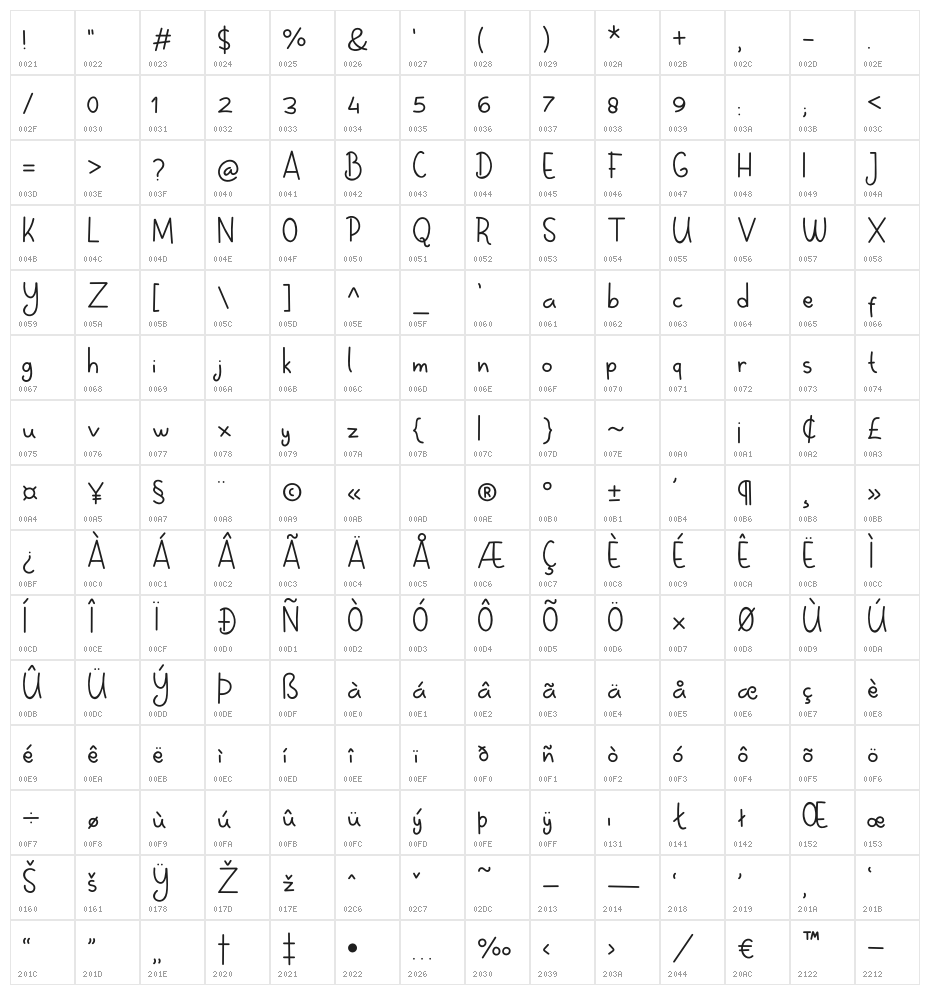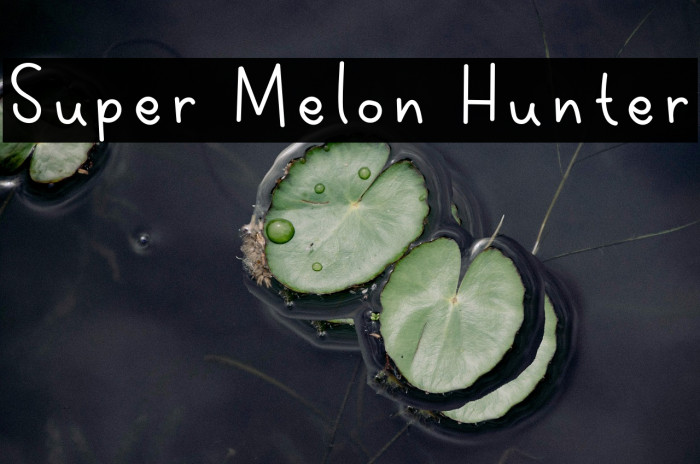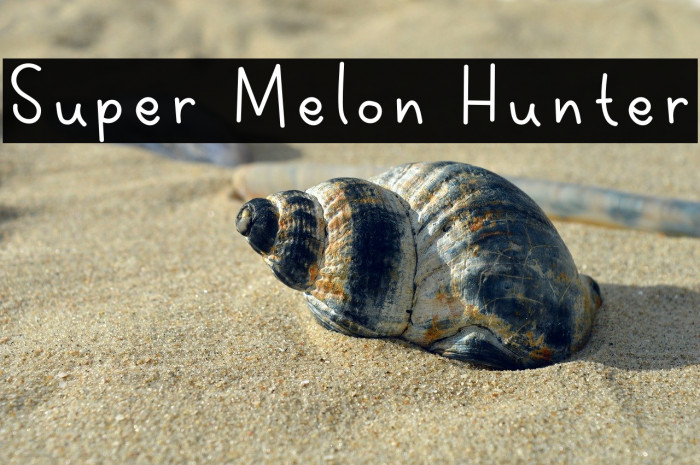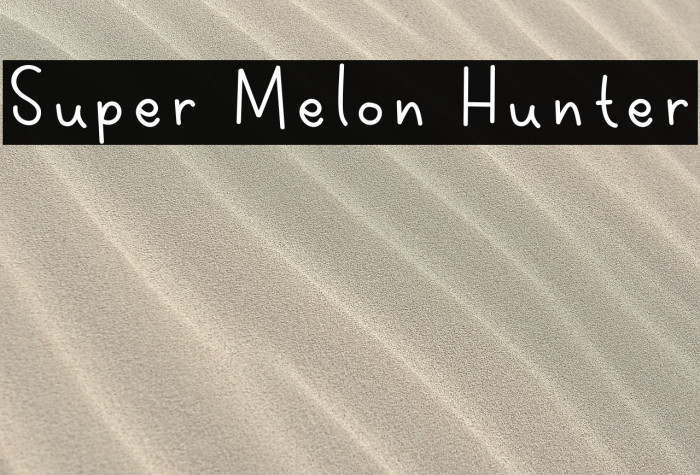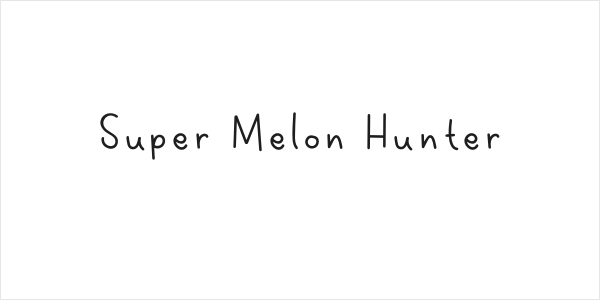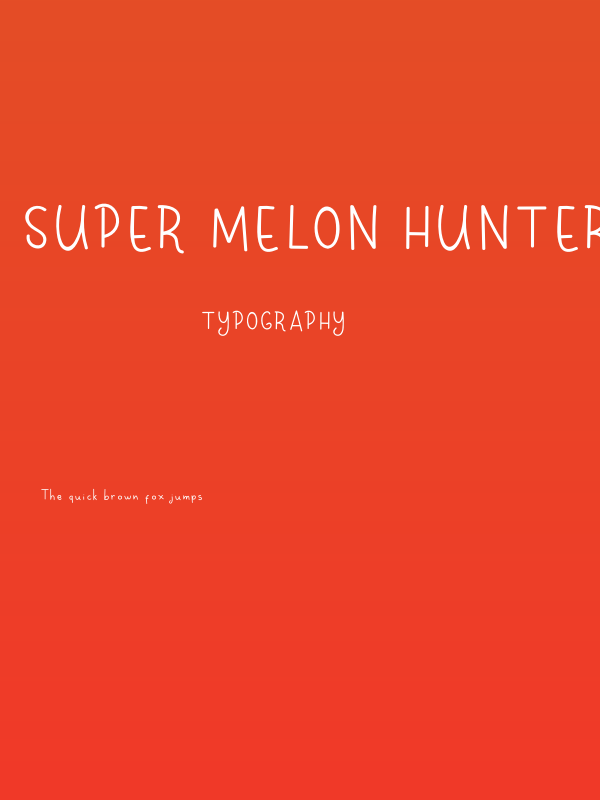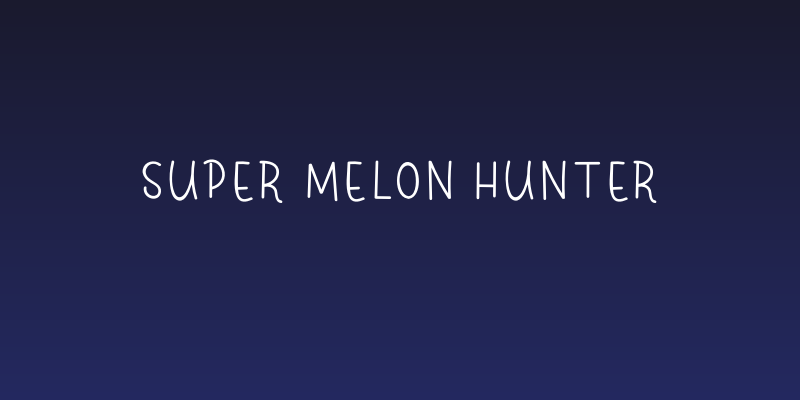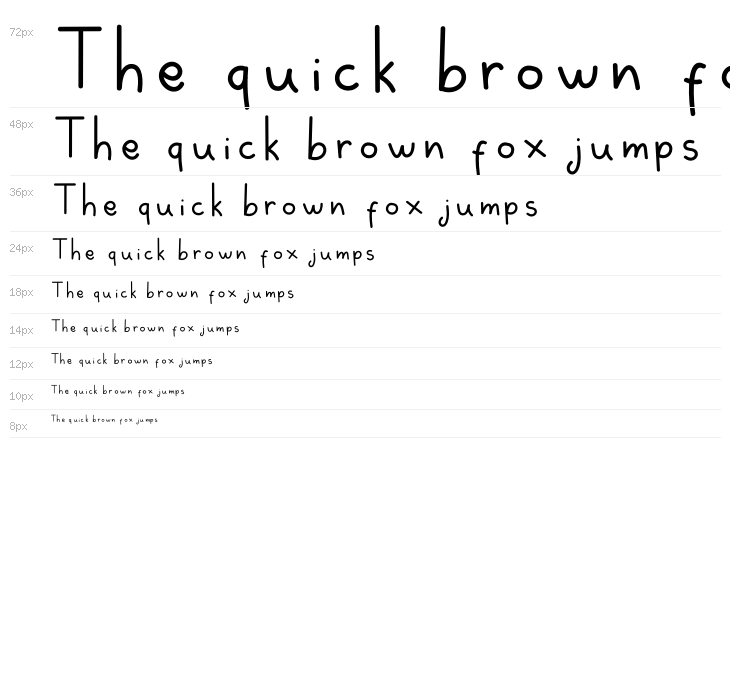
Super Melon Hunter Font
Super Melon Hunter Description
This font features a playful and whimsical handwritten style, characterized by its smooth, rounded edges and slightly irregular letterforms. The uppercase letters are tall and narrow, with a casual flair that adds a touch of personality. The lowercase letters maintain a consistent flow, with some letters like 'g' and 'y' having distinctive loops. The numerals are clear and easy to read, matching the overall playful aesthetic. Special characters are well-integrated, maintaining the font's cohesive look. This font is perfect for projects that require a friendly and approachable feel.
| Use Case | Headlines, Logos, Casual Text |
| Proposed Projects | Ideal for children's books, greeting cards, playful branding, and casual invitations. |